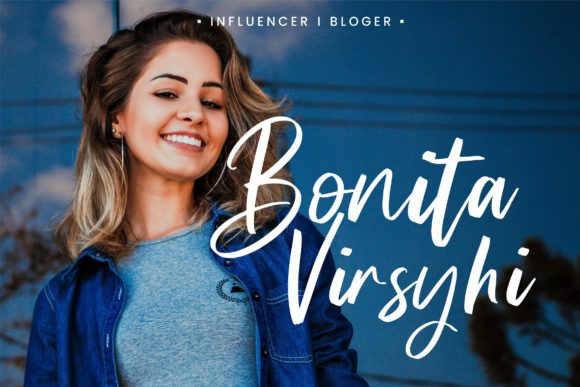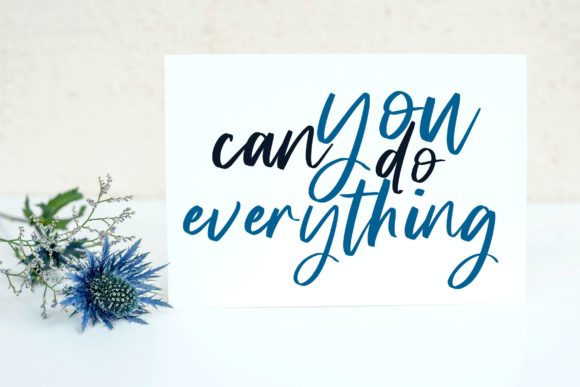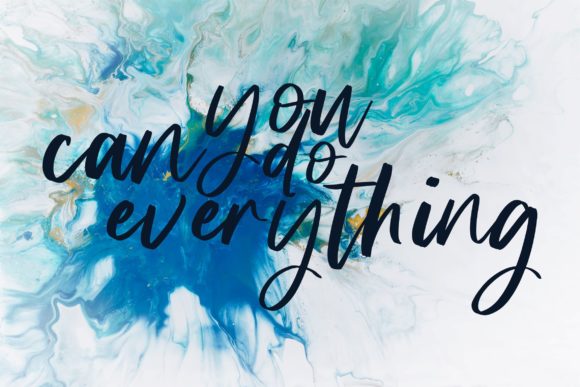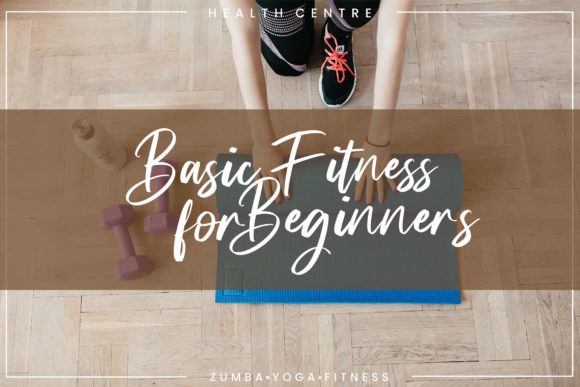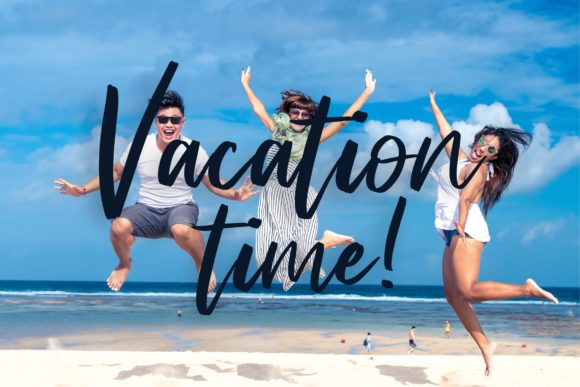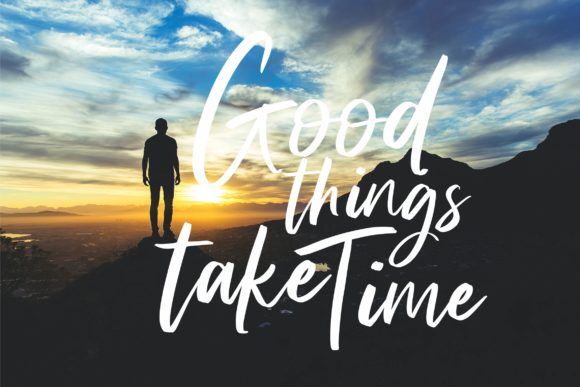
Introduction to Milando Font Font
Fonts play a crucial role in design, and the Milando Font font is a typeface that brings both character and versatility to any project. Whether you’re working on a branding project, a website, or a print design, the Milando Font font offers a unique style that can elevate your work.
Milando is an incredibly distinct, delicate and timeless handwritten font.
It looks stunning on wedding invitations, thank you cards, quotes, greeting cards, logos, business cards and every other design which needs a handwritten touch .
Key Features of Milando Font Font
Why Choose Milando Font Font?
The Milando Font font is more than just a typeface – it’s a design tool that helps you communicate your message with style and clarity. Its unique character set and versatile design make it suitable for a wide range of applications, from elegant invitations to bold headlines.
With its carefully crafted letterforms and balanced proportions, the Milando Font font ensures readability and visual appeal across all mediums.
What makes Milando Font font special?
The Milando Font font stands out with its unique design, exceptional readability, and versatility across various design applications.